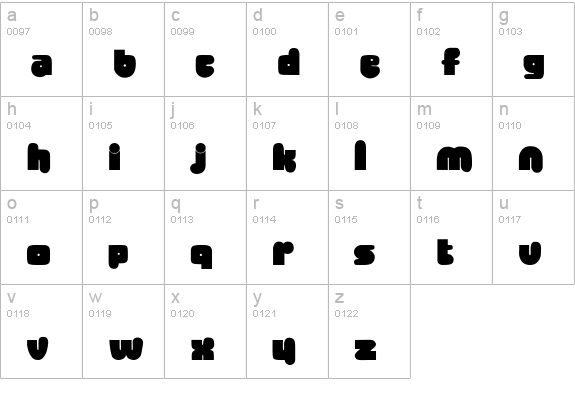
Banta Display SSi Font Details
Banta Display SSi is a modern and stylish font that exudes elegance and sophistication. With its clean lines and bold presence, this typeface is perfect for creating eye-catching designs that demand attention. The versatility of Banta Display SSi makes it suitable for a wide range of projects, from branding to editorial design. The best part? Banta Display SSi is available for free download at FontsMarket.com. Whether you're a seasoned designer or just starting out, you can easily access this stunning font to enhance your creative projects. Don't miss out on the opportunity to elevate your design work with this beautiful typeface that is both striking and versatile. Download Banta Display SSi today and let your creativity shine!